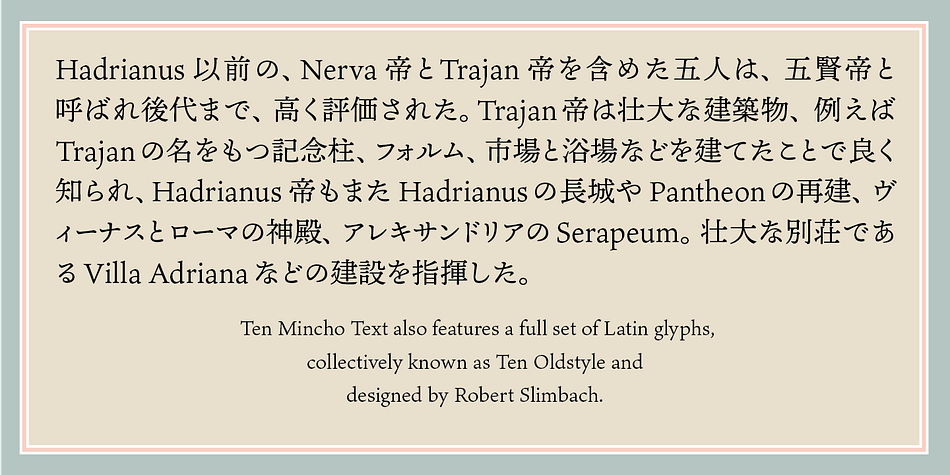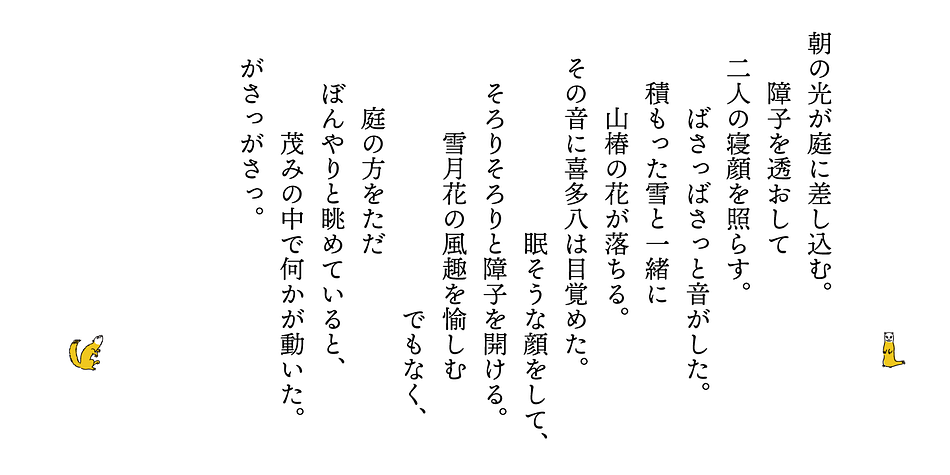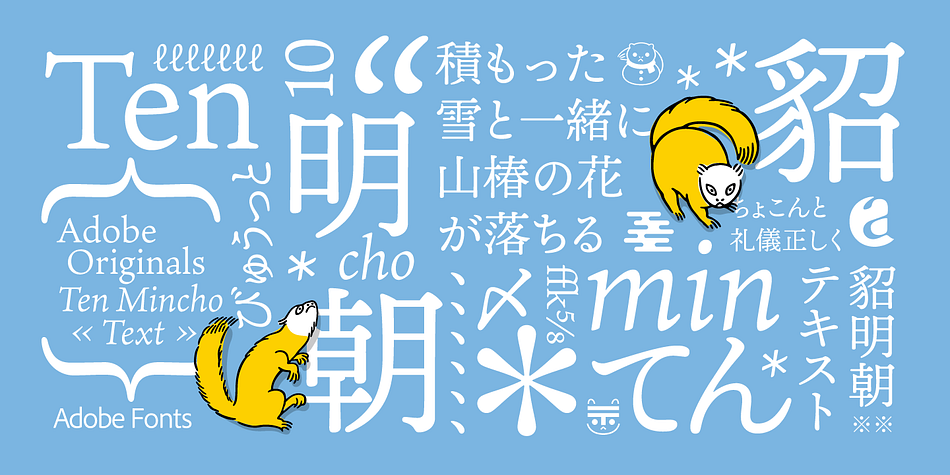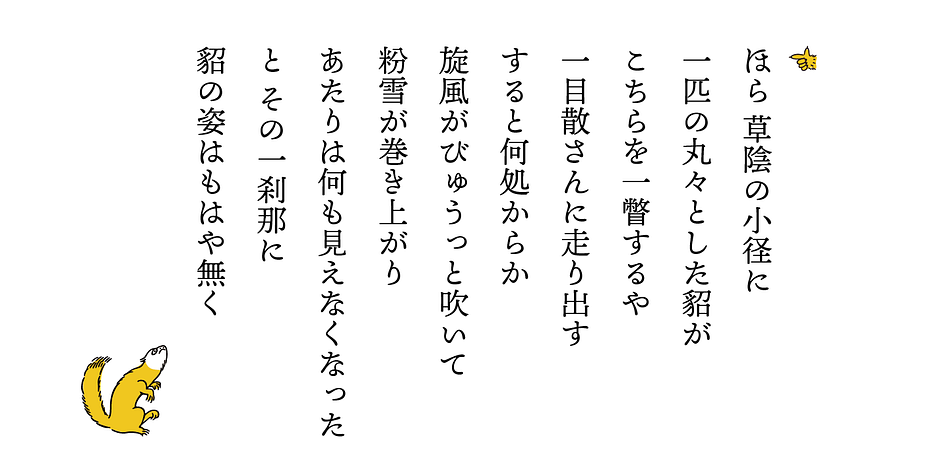
Designed by Robert Slimbach and Ryoko Nishizuka, Ten Mincho is a serif font family. This typeface has four styles and was published by Adobe.
Ten Mincho is a Japanese typeface design from Adobe Originals, designed by Ryoko Nishizuka and useful for a broad range of settings, such as advertising copy, book titles, and headings. As a traditional Mincho-style design the strokes are slightly heavy and rounded, and exhibit smaller counter spaces.
Ten Mincho also features a full set of Latin glyphs, collectively known as Ten Oldstyle and designed by Robert Slimbach. This relatively feature-rich Latin subset includes OpenType features such as small caps and old-style figures. Finally, look for a small number of color emoji in an SVG table, some of which are accessible as alternates.